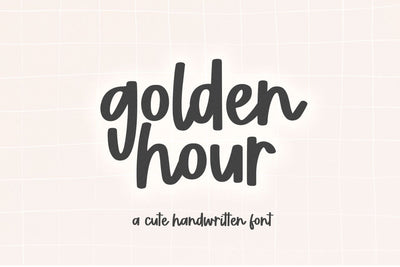
Golden Hour - Handwritten Script Font
Golden Hour is a cute handwritten script font.
This font is perfect for cricut projects, svg files, stickers, teachers, logos, procreate, goodnotes and more!